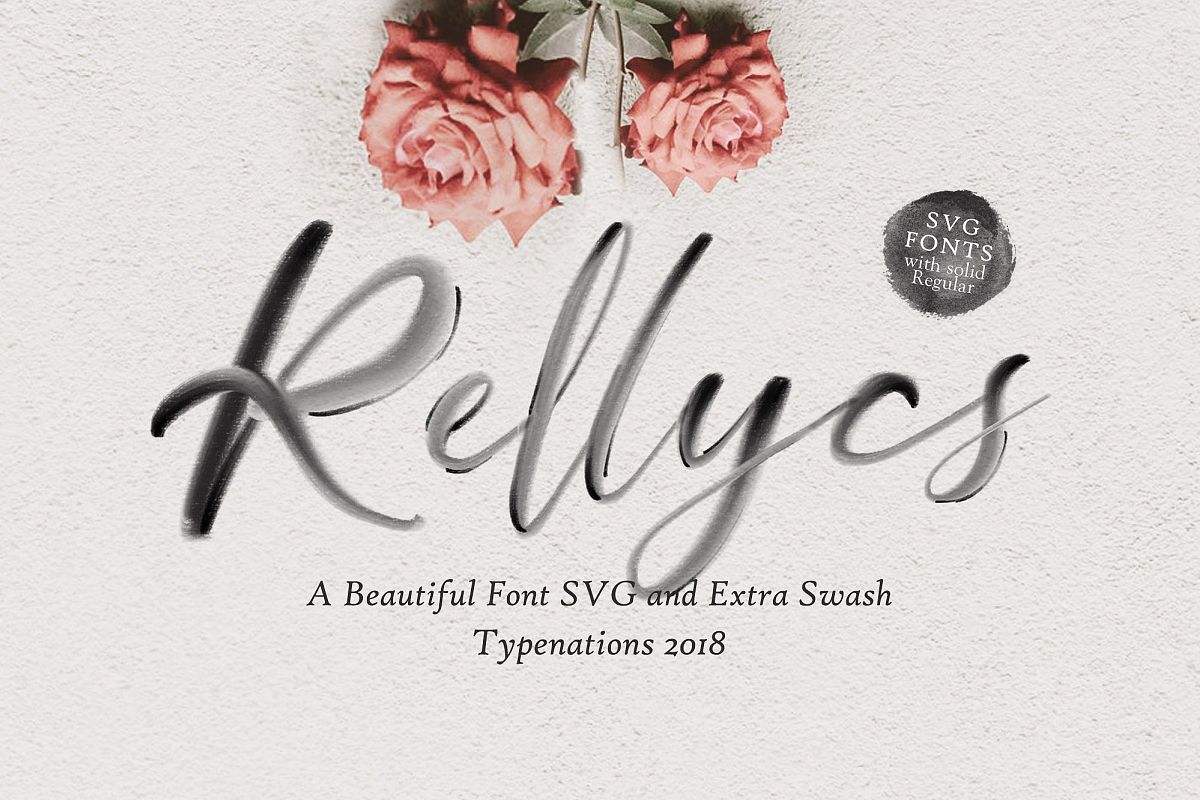
Rellycs OpenType SVG
Typenations proudly presents Rellycs OpenType SVG. Made with classy element that make this font so Elegance. This font also comes with Ligatures and Stylistic Alternates that will make the signature font more real. Rellycs OpenType SVGis very best choice fonts for : Wedding Invitation, branding, web content, quotes, Posters, Logos, Print Ads, Digital Ads, Promotion Product etcFeatures